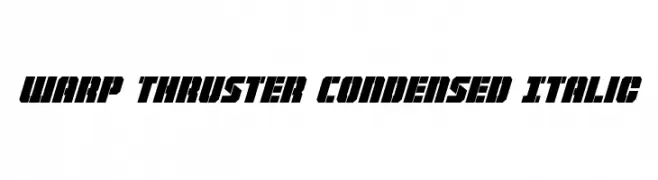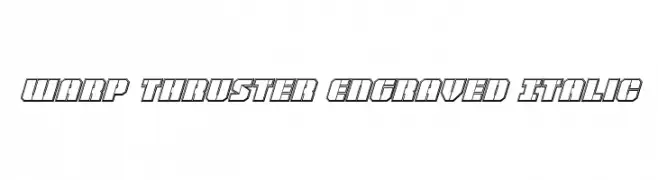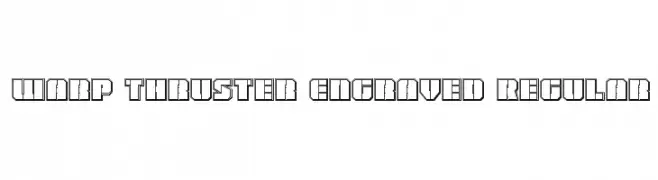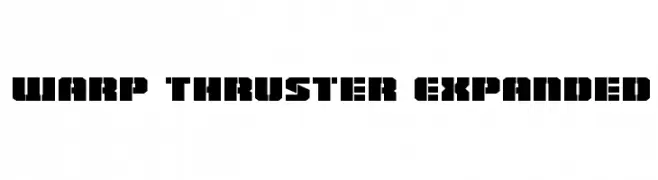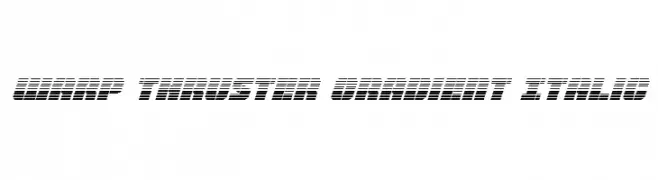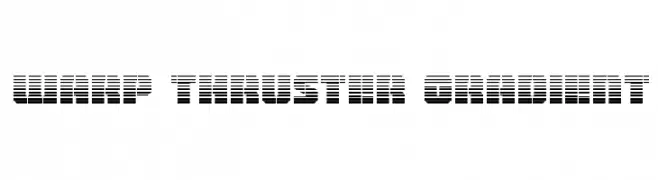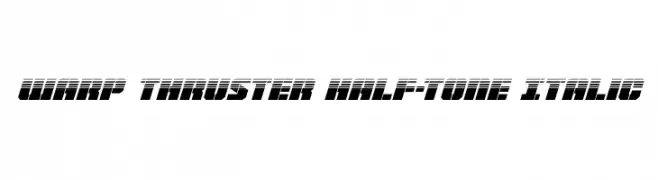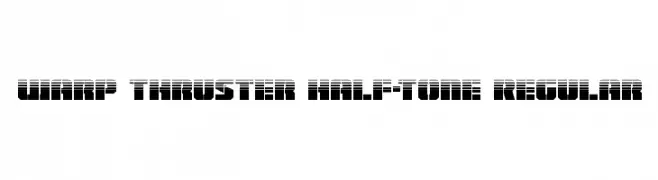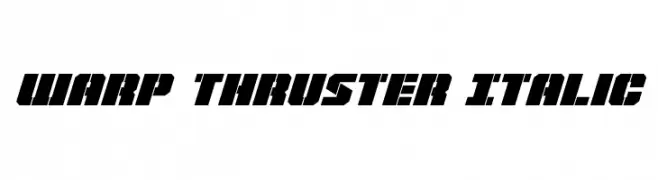
A bold, condensed, and italic font with a futuristic and dynamic design.
A futuristic, angular font with outlined characters and an italic style.
A bold, futuristic font with a three-dimensional engraved effect and geometric shapes.
A bold, geometric font with a futuristic and industrial style.
A bold, angular, and futuristic font with expanded and italicized characters.
A futuristic, striped font with bold geometric shapes and a digital aesthetic.
A futuristic, italicized font with gradient stripes, conveying motion and speed.
A bold, italicized font with a futuristic half-tone effect, ideal for dynamic designs.
A bold, futuristic font with a half-tone effect and dynamic, geometric shapes.
A bold, futuristic italic font with sharp, angular edges.